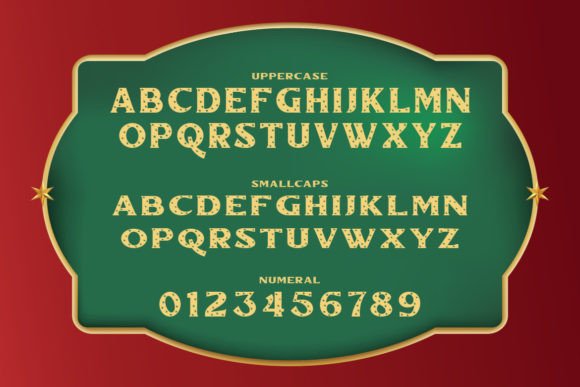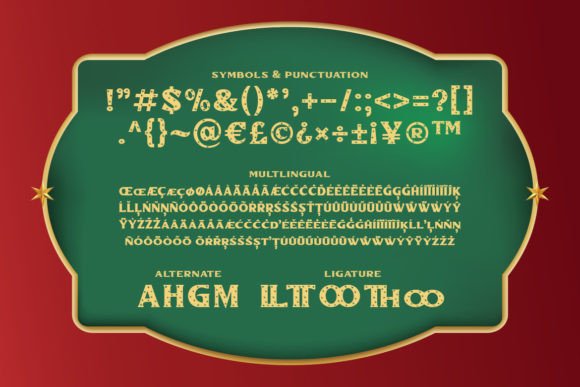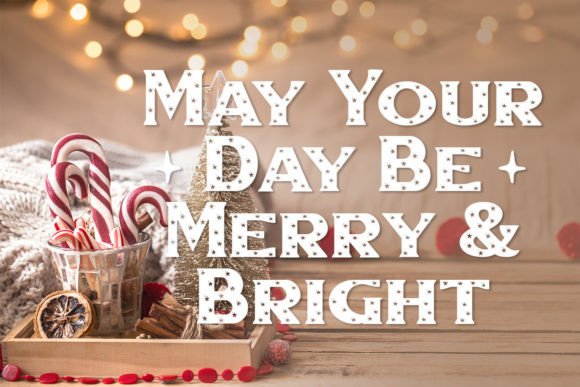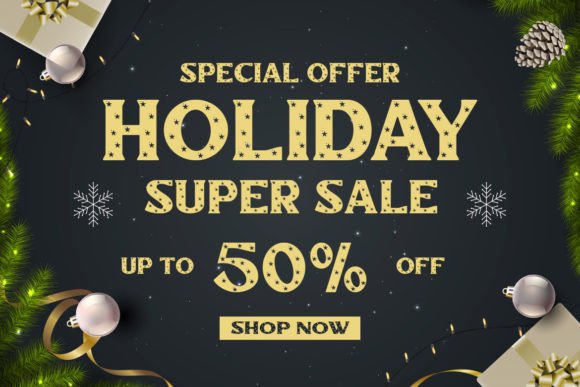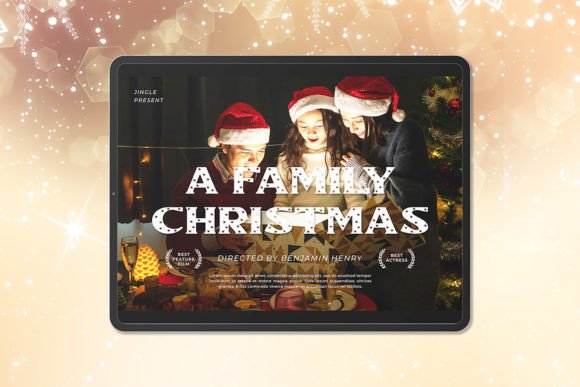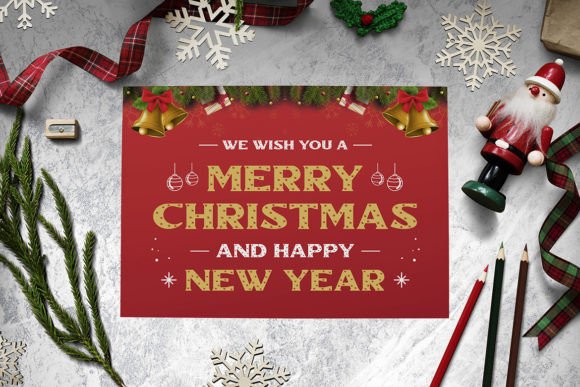
Introducing Happinest Jingle: The Ultimate Christmas Display Font for Your Holiday Designs
Are you looking for a font that can add a touch of fun and holiday cheer to your designs? Look no further than Happinest Jingle, a festive and whimsical Christmas display font that’s perfect for creating greeting cards, invitations, and other holiday-themed designs. With its playful and charming design, Happinest Jingle is sure to bring a smile to anyone’s face and get them in the mood for the holiday season.
A Festive and Cheerful Font for Your Holiday Designs
Happinest Jingle is a Christmas display font that’s designed to capture the spirit of the holiday season. Its festive and cheerful look makes it perfect for designs that celebrate Christmas, while its playful and whimsical design makes it a great choice for designs that need a touch of lightheartedness. Whether you’re creating greeting cards, invitations, or other holiday-themed designs, Happinest Jingle is the perfect font to add a touch of fun and personality to your work.
Key Features of Happinest Jingle
So, what makes Happinest Jingle such a great font for your holiday designs? Here are just a few of its key features:
- Uppercase and Lowercase Letters: Happinest Jingle features both uppercase and lowercase letters, making it perfect for creating designs that require a mix of both.
- Numbers and Punctuation: The font also includes numbers and punctuation, giving you everything you need to create complete and professional-looking designs.
- Multilingual Support: Happinest Jingle supports multiple languages, making it a great choice for designers who work with clients from around the world.
- Playful and Whimsical Design: The font’s playful and whimsical design makes it perfect for adding a touch of fun and personality to your holiday designs.
Why Choose Happinest Jingle for Your Holiday Designs?
So, why should you choose Happinest Jingle for your holiday designs? Here are just a few reasons:
- Unique and Eye-Catching: Happinest Jingle is a unique and eye-catching font that’s sure to stand out from the crowd.
- Perfect for Holiday Designs: The font’s festive and cheerful look makes it perfect for holiday designs, while its playful and whimsical design makes it a great choice for designs that need a touch of lightheartedness.
- Versatile: The font is versatile and can be used in a variety of settings, from greeting cards and invitations to posters and social media graphics.
How to Use Happinest Jingle in Your Designs
- Use it for Headings: The font’s bold and playful design makes it perfect for headings and titles.
If you’re looking for a font that can add a touch of fun and holiday cheer to your designs, look no further than Happinest Jingle. With its playful and charming design, this font is perfect for creating greeting cards, invitations, and other holiday-themed designs. Its festive and cheerful look makes it perfect for designs that celebrate the spirit of Christmas, while its playful and whimsical design makes it a great choice for designs that need a touch of lightheartedness. So why wait? Download Happinest Jingle today and start creating your own holiday designs!